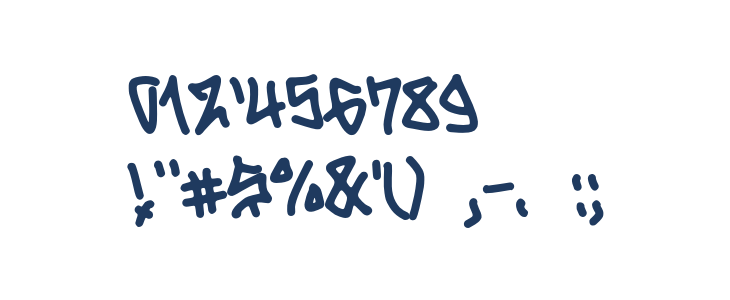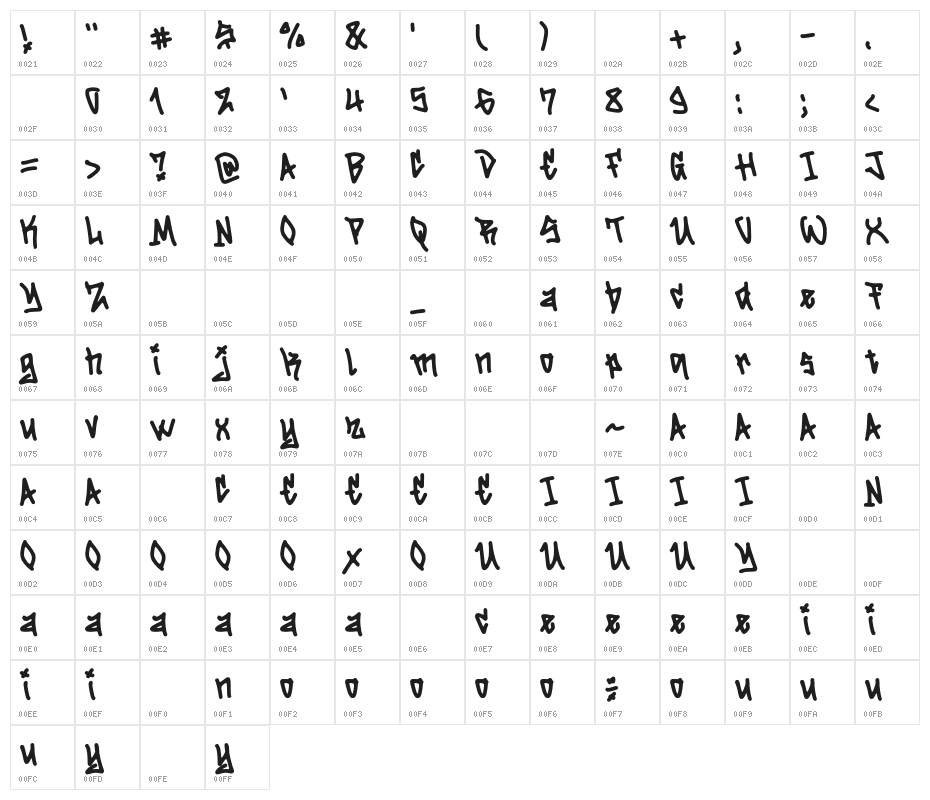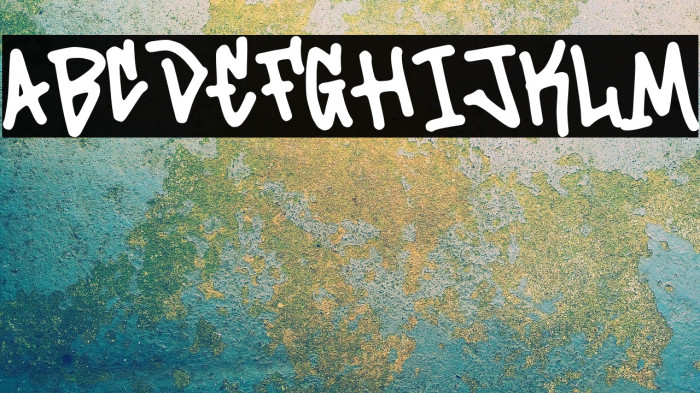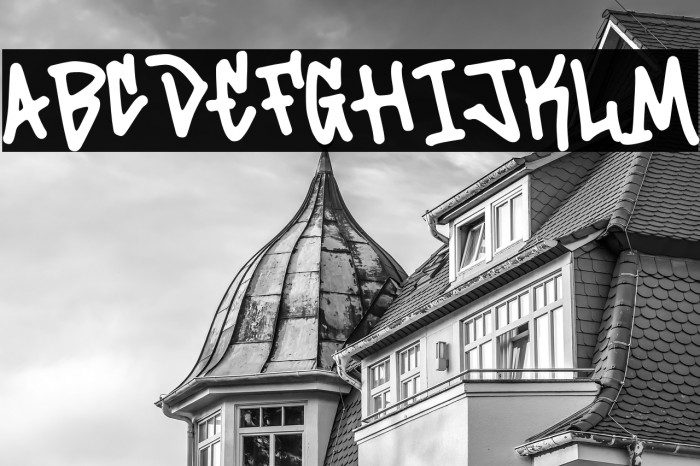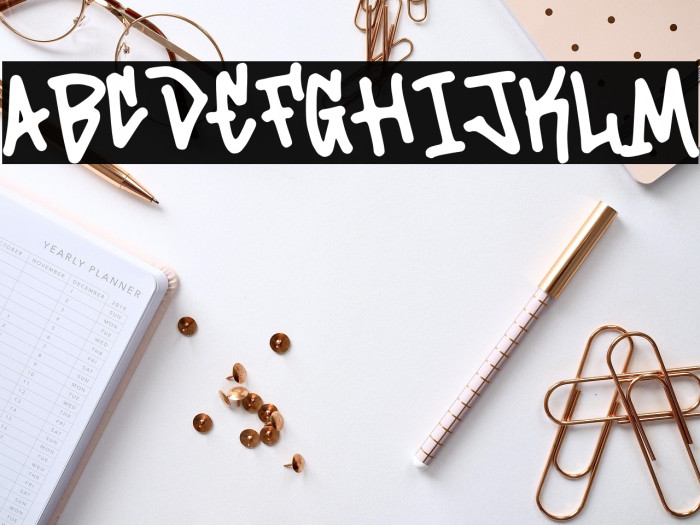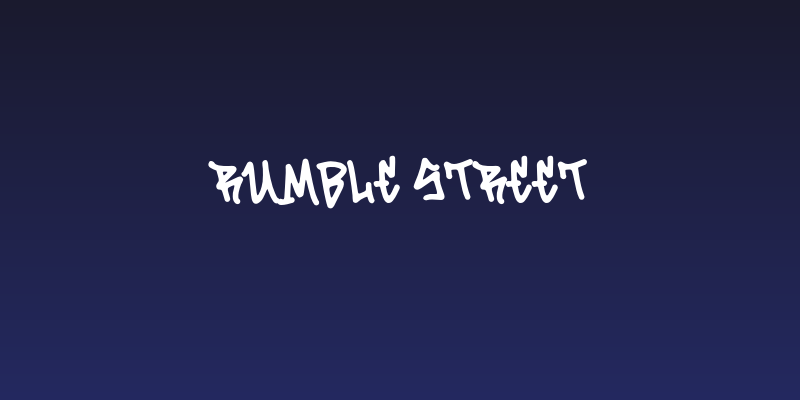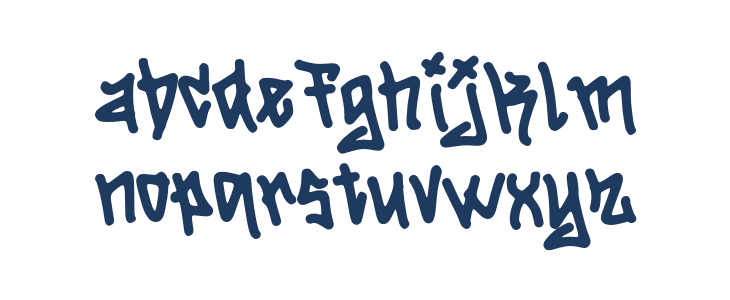
Rumble Street Font
Rumble Street Description
This font exudes a bold and energetic vibe, characterized by its thick, uneven strokes and dynamic, hand-drawn appearance. The letters are slightly slanted, giving a sense of movement and spontaneity. The uppercase and lowercase letters maintain a consistent style, with exaggerated curves and angles that add to its playful and informal nature. Numbers and special characters follow the same lively design, making the font suitable for creative and expressive projects. Its unique style captures attention and conveys a sense of individuality and artistic flair.
| Overall Style | Modern, Artistic |
| Proposed Projects | Ideal for street art designs, music album covers, graffiti-themed projects, and creative posters. |